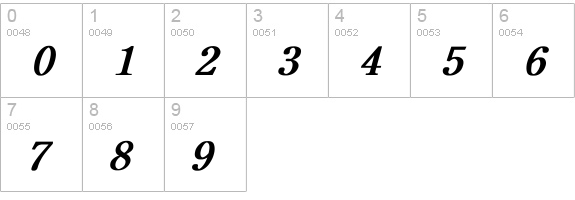
CenturyOldStyle Bold Italic is a strong, high-contrast, italic variant in the CenturyOldStyle typeface family \xE2\x80\x94 well suited to headlines, attention-grabbing titles, and strong calls-to-action.
CenturyOldStyle Bold Italic is a timeless and sophisticated font that exudes elegance and charm. With its bold and italicized style, this font is perfect for adding a touch of class to any design project. Whether you are creating invitations, posters, or branding materials, CenturyOldStyle Bold Italic will make your text stand out beautifully. The graceful curves and strong presence of CenturyOldStyle Bold Italic make it a versatile choice for both print and digital applications. Its classic appearance gives a sense of tradition and refinement, while its bold weight commands attention and makes a statement. And the best part? CenturyOldStyle Bold Italic is available for free download at FontsMarket.com. Now you can elevate your designs with this stunning font without having to worry about any additional costs. Don't miss out on the opportunity to enhance your projects with the timeless beauty of CenturyOldStyle Bold Italic. Download it today and start creating with style and sophistication.